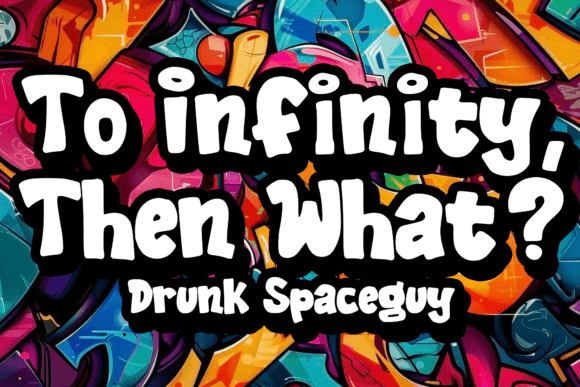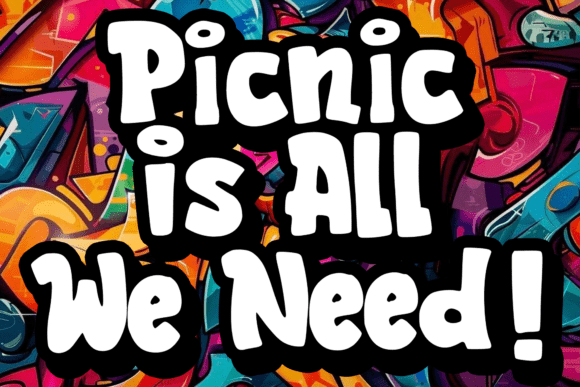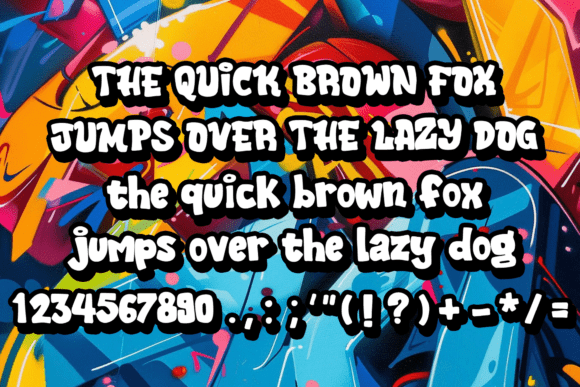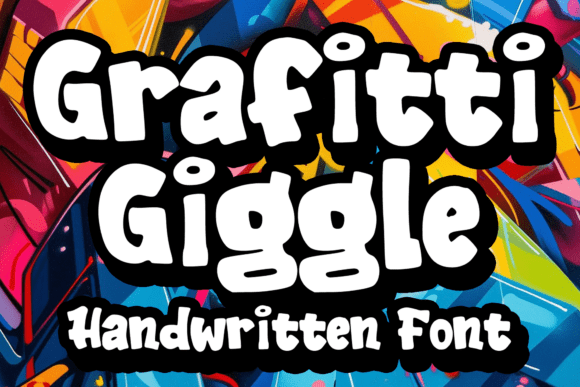
Unleash Your Creativity with Graffiti Giggle Font
Are you a designer, artist, or crafter looking for a font that can add a bold and playful twist to your projects? Look no further than Graffiti Giggle, a daring and dynamic display font inspired by the rebellious street style of graffiti. With its versatility and charisma, Graffiti Giggle is the perfect fit for a wide range of design applications, from clothing and book covers to street art, greeting cards, stickers, banners, and posters.
The Inspiration Behind Graffiti Giggle
Graffiti Giggle is born out of the vibrant and dynamic world of street art. The font’s design is influenced by the bold, colorful, and often playful style of graffiti, which has become a staple of urban landscapes around the world. With its unique blend of edginess and charm, Graffiti Giggle is designed to bring a touch of rebellion and fun to your designs.
What Makes Graffiti Giggle So Versatile?
Graffiti Giggle’s versatility lies in its ability to seamlessly lend its wilderness and charisma to a wide range of design applications. Whether you’re working on a clothing design, book cover, street art project, or greeting card, Graffiti Giggle can add a bold and playful twist that sets your design apart. The font’s dynamic and daring style makes it perfect for:
- Clothing designs: Add a bold and playful touch to your t-shirt, hoodie, or hat designs with Graffiti Giggle.
- Book covers: Make your book cover stand out with Graffiti Giggle’s unique and eye-catching style.
- Street art projects: Bring a touch of rebellion and fun to your street art projects with Graffiti Giggle.
- Greeting cards: Add a playful and cheerful touch to your greeting cards with Graffiti Giggle.
- Stickers, banners, and posters: Graffiti Giggle is the perfect fit for stickers, banners, and posters that require a bold and playful twist.
Why Choose Graffiti Giggle?
So why choose Graffiti Giggle over other fonts? Here are just a few reasons:
- Unique style: Graffiti Giggle has a unique and eye-catching style that sets it apart from other fonts.
- Versatility: Graffiti Giggle can be used for a wide range of design applications, from clothing and book covers to street art and greeting cards.
- Playful and cheerful energy: Graffiti Giggle radiates a fun and cheerful energy that can add a playful touch to your designs.
- Easy to use: Graffiti Giggle is easy to use and can be easily integrated into your design workflow.
Tips for Using Graffiti Giggle
Here are a few tips for using Graffiti Giggle in your designs:
- Experiment with colors: Graffiti Giggle looks great in bold and bright colors, so don’t be afraid to experiment with different color schemes.
- Use it as a statement piece: Graffiti Giggle is a bold and eye-catching font, so use it as a statement piece in your design.
- Mix it with other fonts: Graffiti Giggle can be paired with other fonts to create a unique and interesting design.
Graffiti Giggle is a daring and dynamic display font that can add a bold and playful twist to your designs. With its versatility and charisma, Graffiti Giggle is the perfect fit for a wide range of design applications. Whether you’re a designer, artist, or crafter, Graffiti Giggle is the perfect font to unleash your creativity and bring a touch of rebellion and fun to your designs. So why wait? Download Graffiti Giggle today and start creating visually stunning designs that radiate fun and cheerful energy!